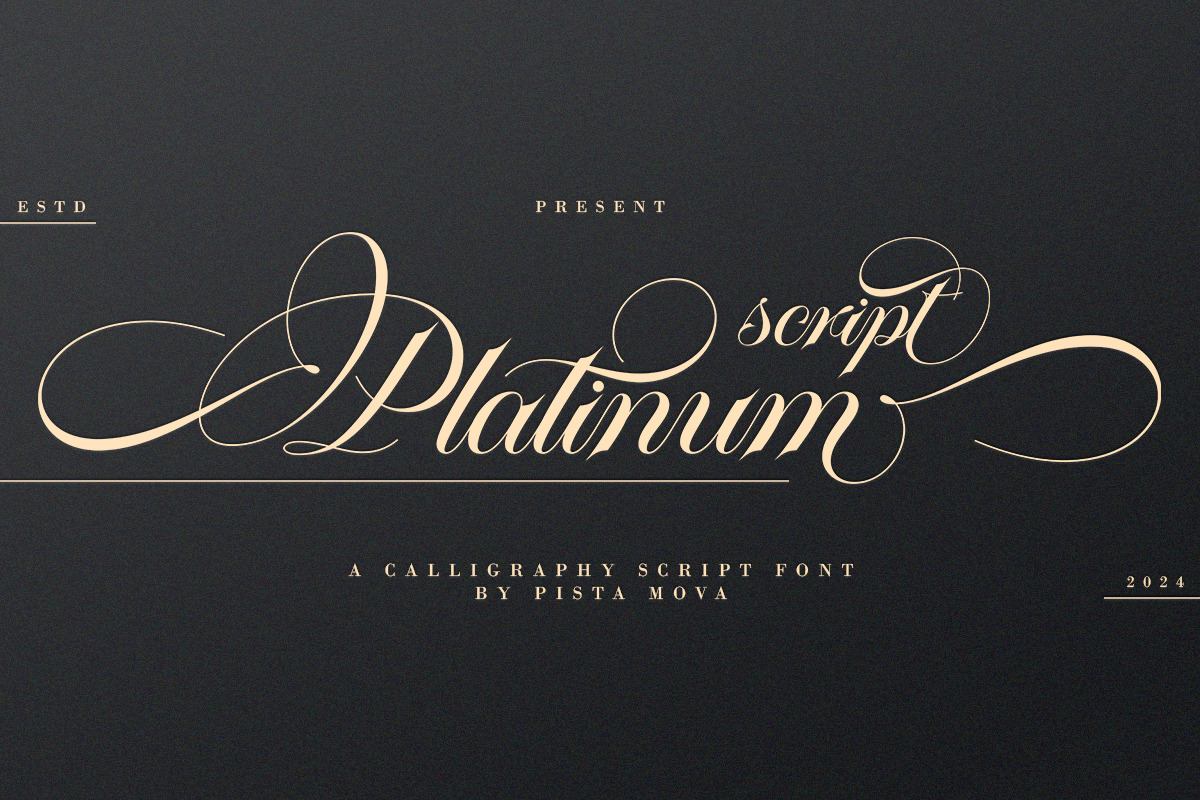
Platinum Script Font Free Download is an elegant and refined handwritten script typeface, designed to add a sophisticated and personal touch to your designs. With its smooth, flowing curves and graceful letterforms, this font is perfect for creating logos, invitations, branding materials, and more. Its delicate script style makes it ideal for high-end projects, such as luxury branding, wedding stationery, and creative campaigns. Whether you're designing for a chic event, a fashion brand, or personalized gifts, Platinum Script Font Free Download lets you experiment with its stylish design in personal projects before purchasing a commercial license. Add timeless elegance and creativity to your designs with this beautifully crafted Platinum Script Font.